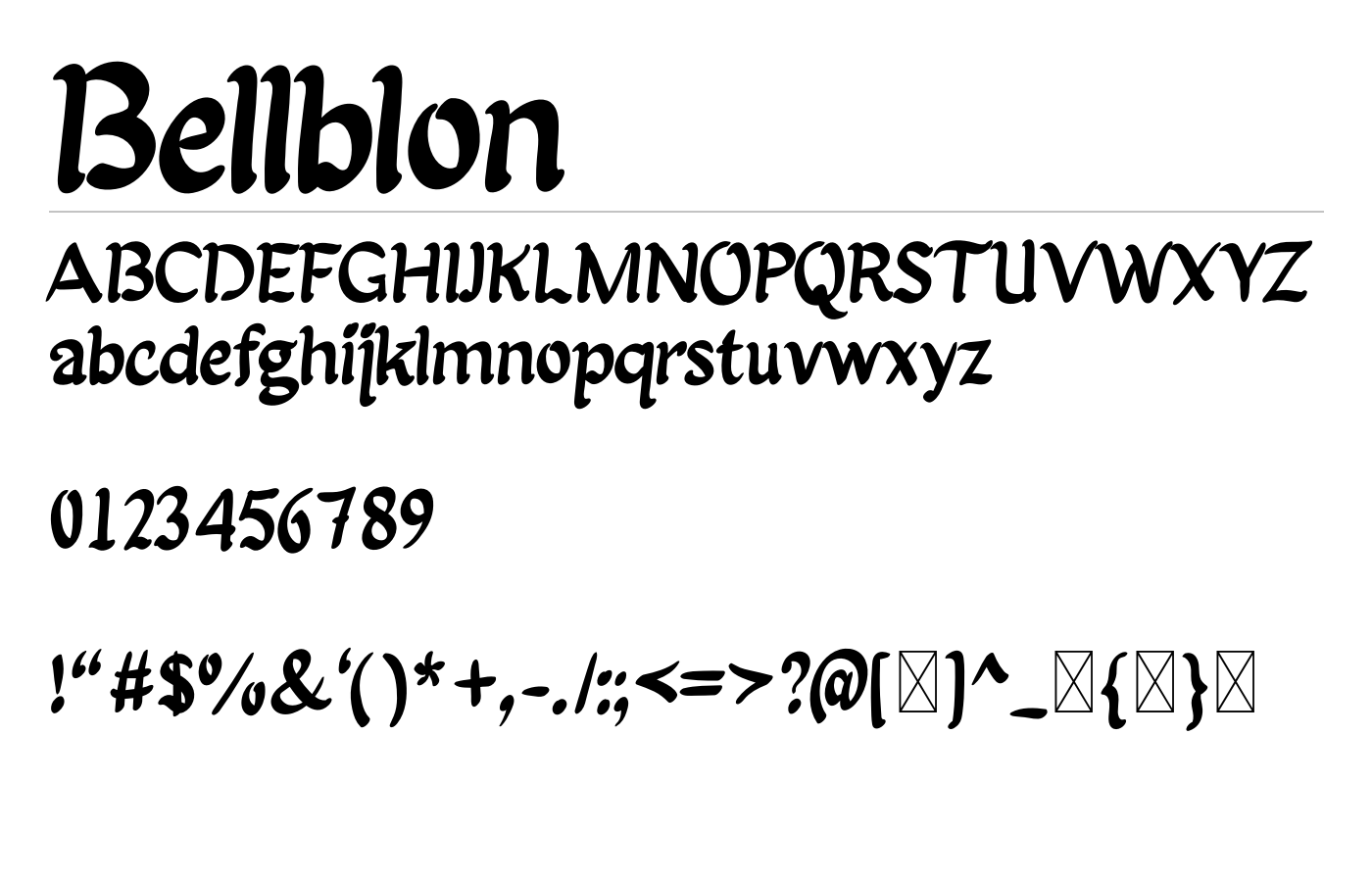
Bellblon is a playful serif font with a warm, hand-crafted feel, featuring medium weight and charmingly irregular letterforms that suggest a calligraphic influence. Its moderate contrast and distinctive shapes, such as the single-story "g" and lively italics, make it ideal for expressive headlines, creative branding, and editorial designs that seek a friendly yet unique personality. This font works best where a touch of elegance and character is needed without sacrificing readability or impact.
Bellblon Font